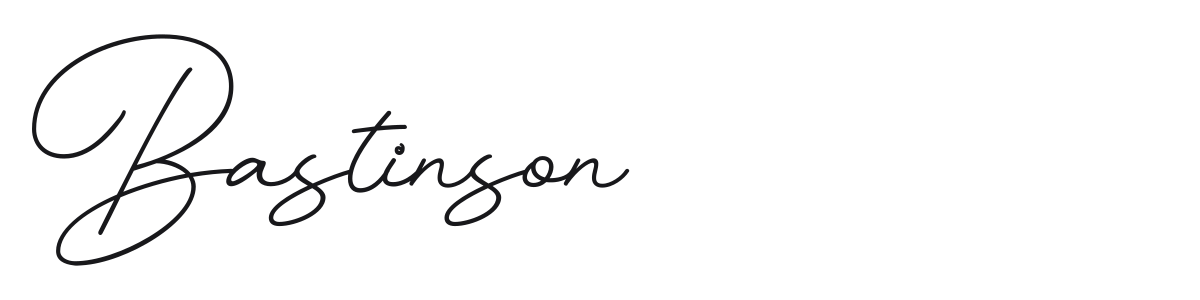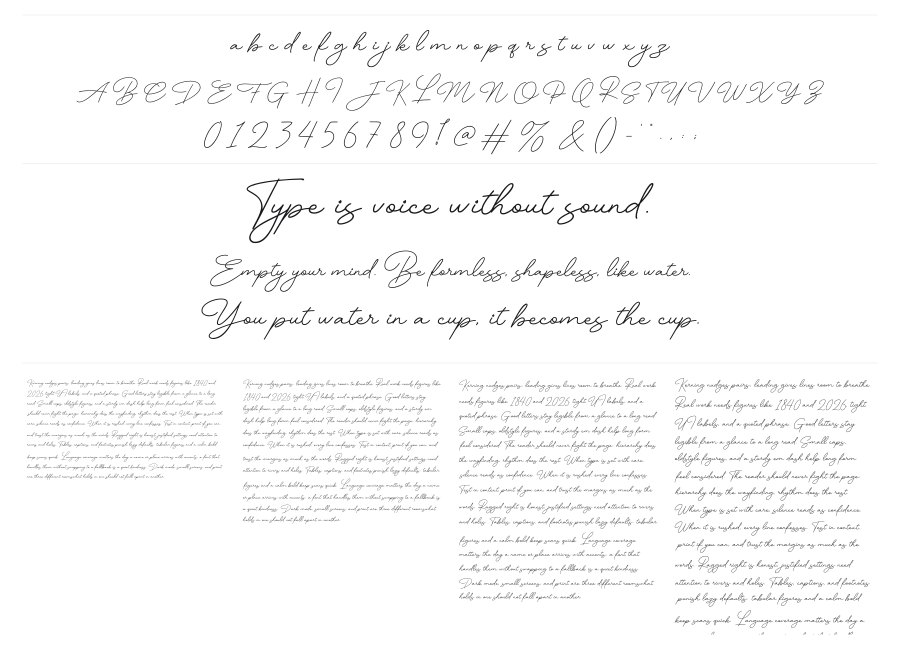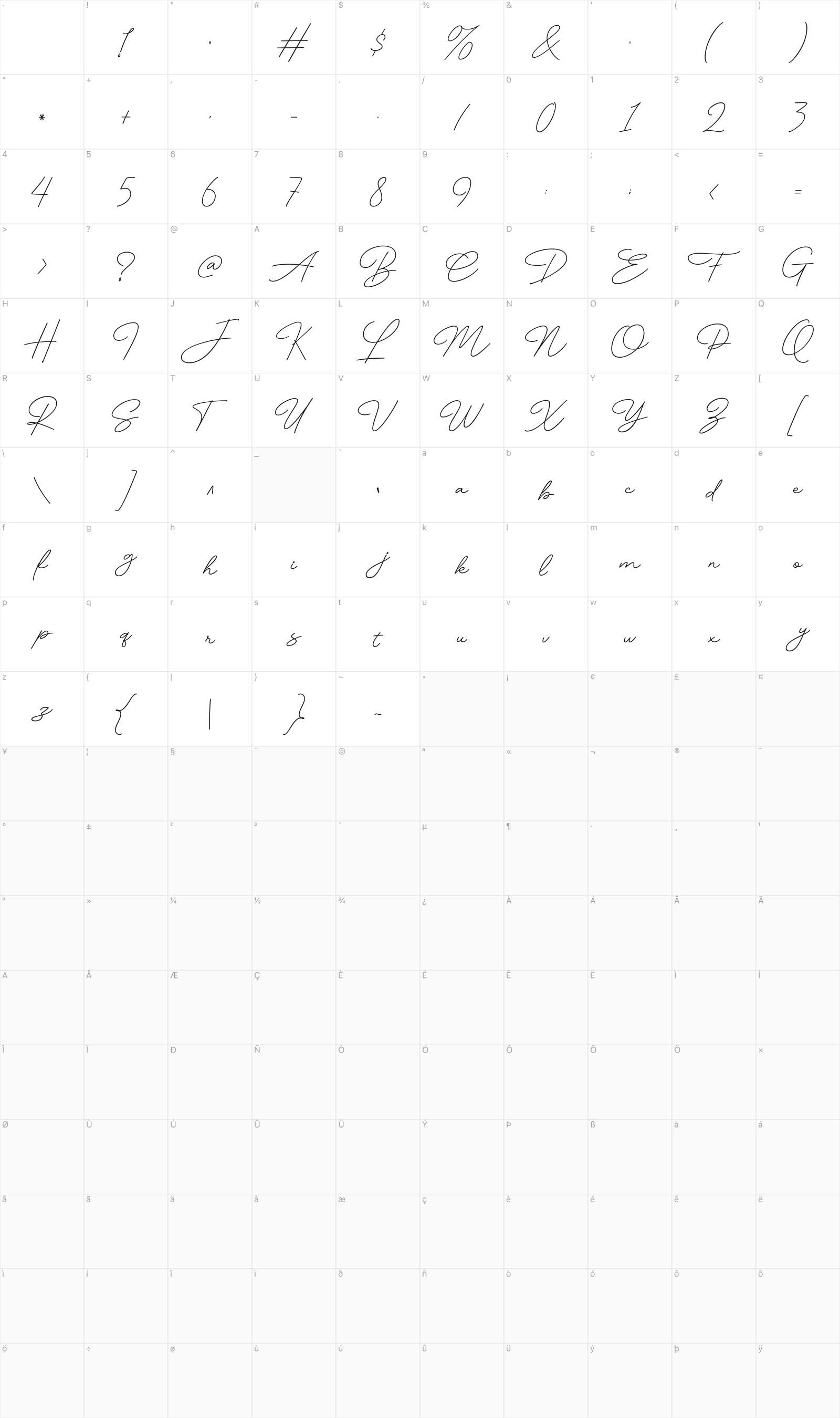
Bastinson
Bastinson is a monoline connected cursive script with a delicate, pen-sketched quality and sweeping letterforms. The consistent thin stroke and long, looping joins give it an airy, romantic feel that reads naturally at large sizes. It suits branding and packaging where a handcrafted, feminine touch is wanted.